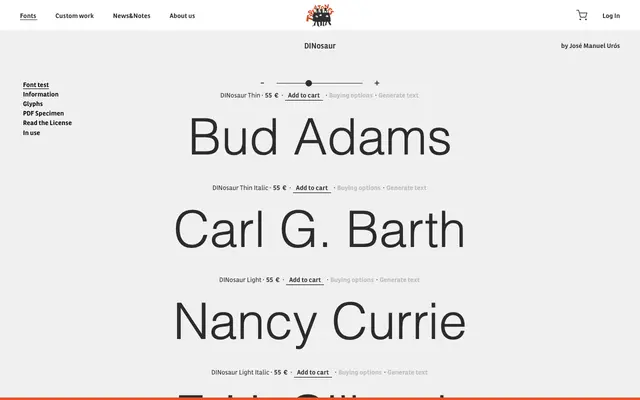
DINosaur
A six-weight DIN-derived geometric sans by José Manuel Urós, with matching italics across every weight.
Drawing on the engineered clarity of the DIN tradition, DINosaur offers six weights from Thin to Black, each paired with an italic, for a total of twelve styles. The name signals both its lineage and a looser, more contemporary take on the industrial grotesque model. Suited to editorial, wayfinding and corporate contexts where DIN-flavoured neutrality is wanted without strict adherence to the original standard.
DINosaur draws from the DIN tradition of geometric, engineered sans-serifs, with a name that directly references DIN while suggesting a reinterpretation of that industrial lineage.